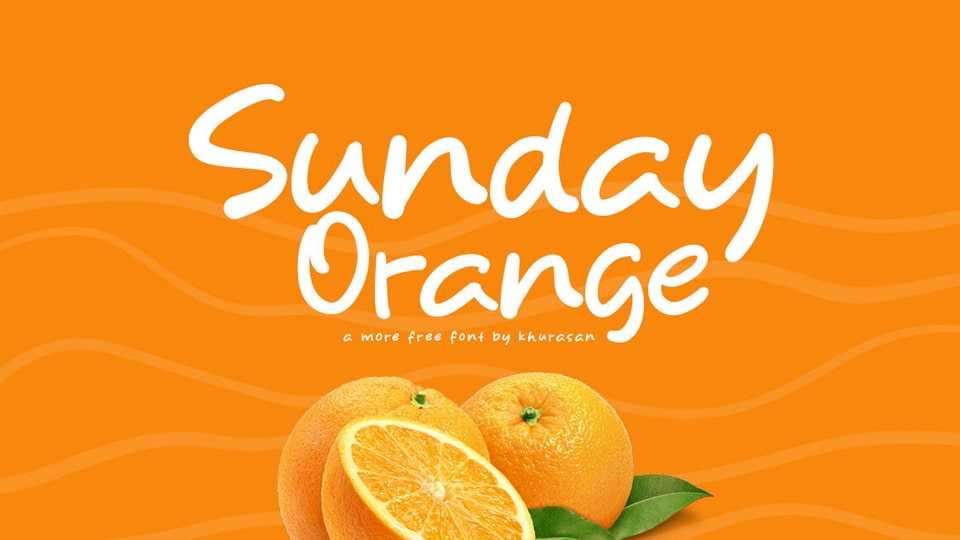
Download Sunday Orange font, a simple handwritten typeface that radiates an air of ease and informality with every character. Each letter is thoughtfully crafted to convey a sense of effortless spontaneity and genuine warmth.